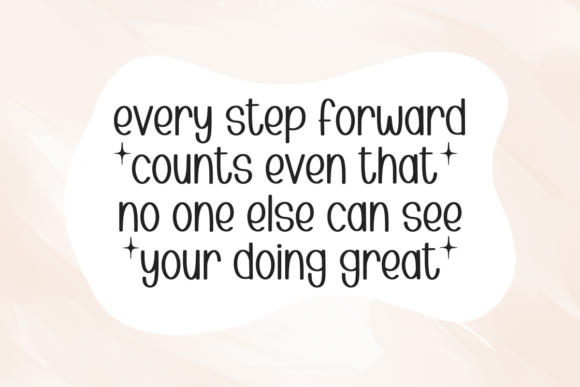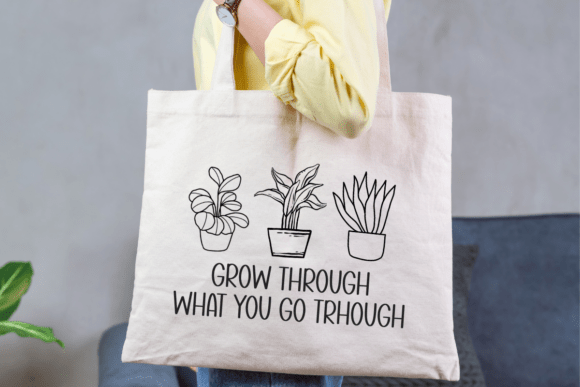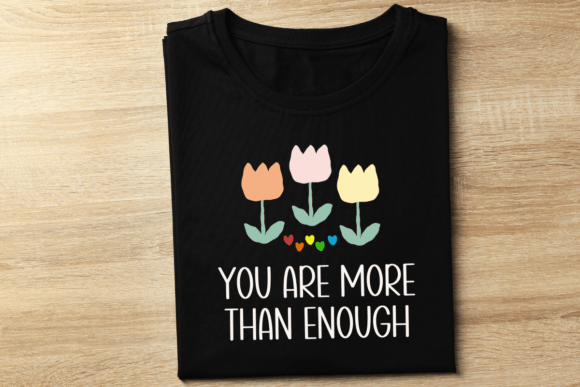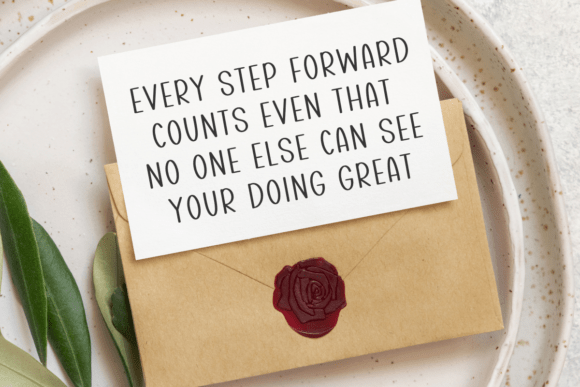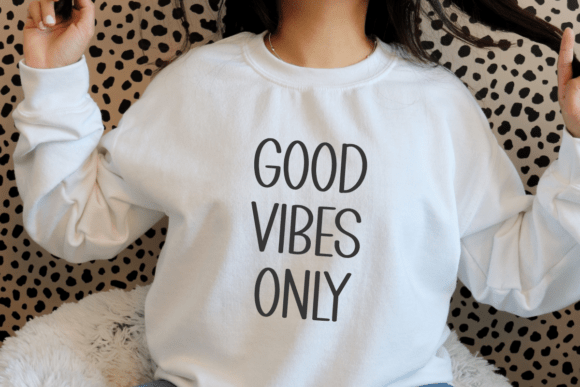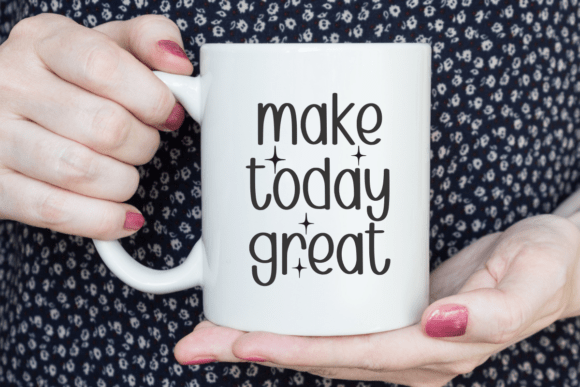
Introducing Christmas Snowman Font: The Perfect Holiday Companion for Designers and Crafters
Are you looking for a font that captures the essence of the holiday season? Something that exudes warmth, friendliness, and a touch of whimsy? Look no further than the Christmas Snowman Font, a charming, minimalist handwritten font that’s perfect for festive designs. With its rounded letters and cozy vibe, this font is sure to become your go-to for holiday cards, seasonal decor, crafts, and branding that needs a personal touch.
The Charm of Christmas Snowman Font
Christmas Snowman Font is a beautifully crafted, handwritten font that’s designed to evoke the magic of the holiday season. Its simple, minimalist style makes it incredibly versatile, allowing it to be paired with a wide range of illustrations, graphics, and design elements. The font’s rounded letters and gentle curves give it a warm, friendly feel that’s sure to put a smile on anyone’s face.
One of the standout features of Christmas Snowman Font is its ability to convey a sense of coziness and warmth. It’s the perfect font for designers and crafters who want to create holiday designs that feel inviting, comforting, and personal. Whether you’re creating holiday cards, gift tags, or seasonal decor, this font is sure to add a touch of festive charm to your designs.
Perfect for Festive Designs
Christmas Snowman Font is incredibly versatile, making it perfect for a wide range of festive designs. Here are just a few ideas to get you started:
- Holiday Cards: Create beautiful, personalized holiday cards that are sure to delight your friends and family. The font’s warm, friendly vibe makes it perfect for conveying holiday cheer.
- Seasonal Decor: Add a touch of festive charm to your seasonal decor with Christmas Snowman Font. Use it to create signs, banners, and other decorations that are sure to get you in the holiday spirit.
- Crafts: This font is perfect for crafters who love to create handmade holiday gifts and decorations. Use it to add a personal touch to your crafts, making them extra special and meaningful.
- Cozy Branding: If you’re looking for a font that will help you create a cozy, inviting brand, Christmas Snowman Font is the perfect choice. Its warm, friendly vibe makes it perfect for businesses that want to convey a sense of comfort and approachability.
Easy to Pair with Illustrations
One of the best things about Christmas Snowman Font is how easily it pairs with illustrations and other design elements. Its simple, minimalist style makes it the perfect complement to a wide range of graphics and illustrations, allowing you to create beautiful, cohesive designs that are sure to impress.
Whether you’re using illustrations of snowmen, reindeer, or Christmas trees, Christmas Snowman Font is sure to enhance your designs and add a touch of festive charm. The font’s versatility makes it perfect for designers and crafters who want to create unique, eye-catching designs that stand out from the crowd.
Get Creative with Christmas Snowman Font
With Christmas Snowman Font, the possibilities are endless. Here are a few ideas to inspire you to get creative:
- Create a Holiday Party Invitation: Use Christmas Snowman Font to create a festive holiday party invitation that’s sure to get your guests in the mood for celebration.
- Design a Custom Ornament: Add a personal touch to your holiday decorations with a custom ornament featuring Christmas Snowman Font.
- Make a Handmade Gift Tag: Use Christmas Snowman Font to create a beautiful, handmade gift tag that’s sure to make your gifts stand out.
Whatever your design or crafting project, Christmas Snowman Font is the perfect choice. Its charming, minimalist style and warm, friendly vibe make it the perfect companion for the holiday season.
| Font Name | Christmas Snowman Font |
In conclusion, Christmas Snowman Font is a must-have for designers and crafters who want to create festive, eye-catching designs that capture the essence of the holiday season. Its charming, minimalist style and warm, friendly vibe make it perfect for holiday cards, seasonal decor, crafts, and cozy branding. With its versatility and ease of use, this font is sure to become your go-to for all your holiday design needs.